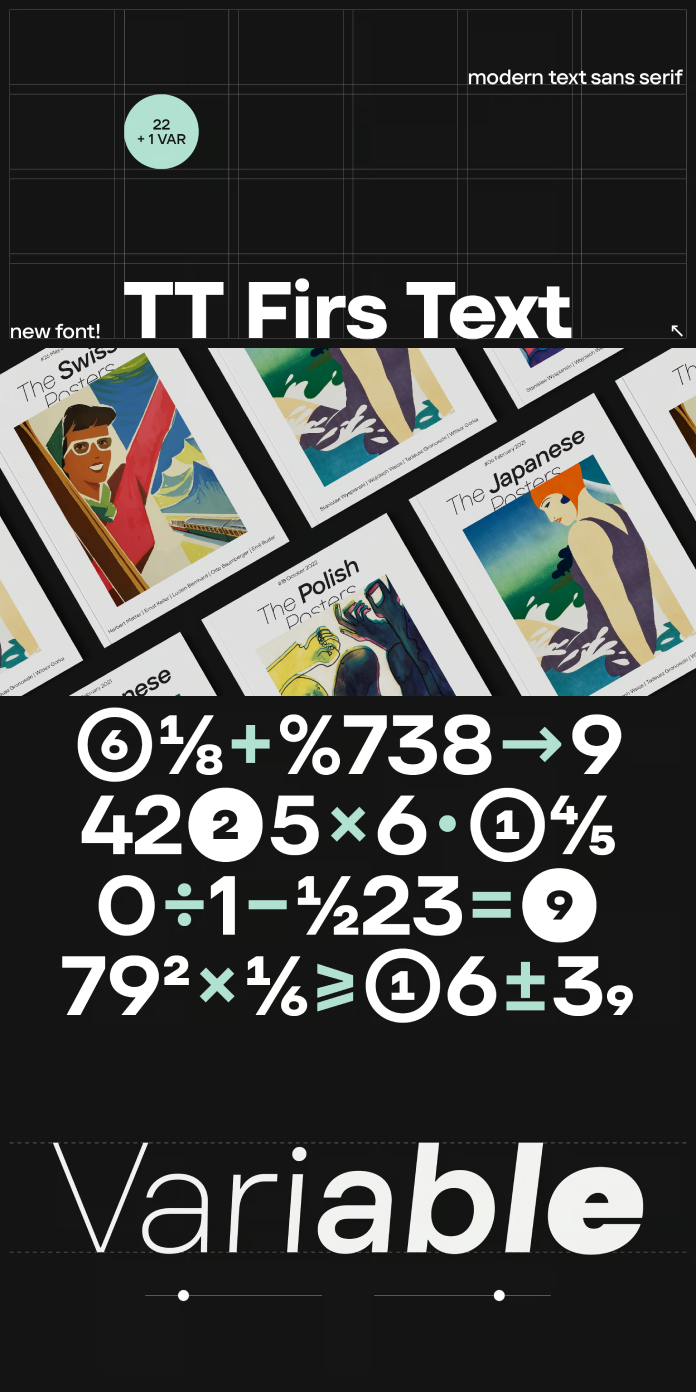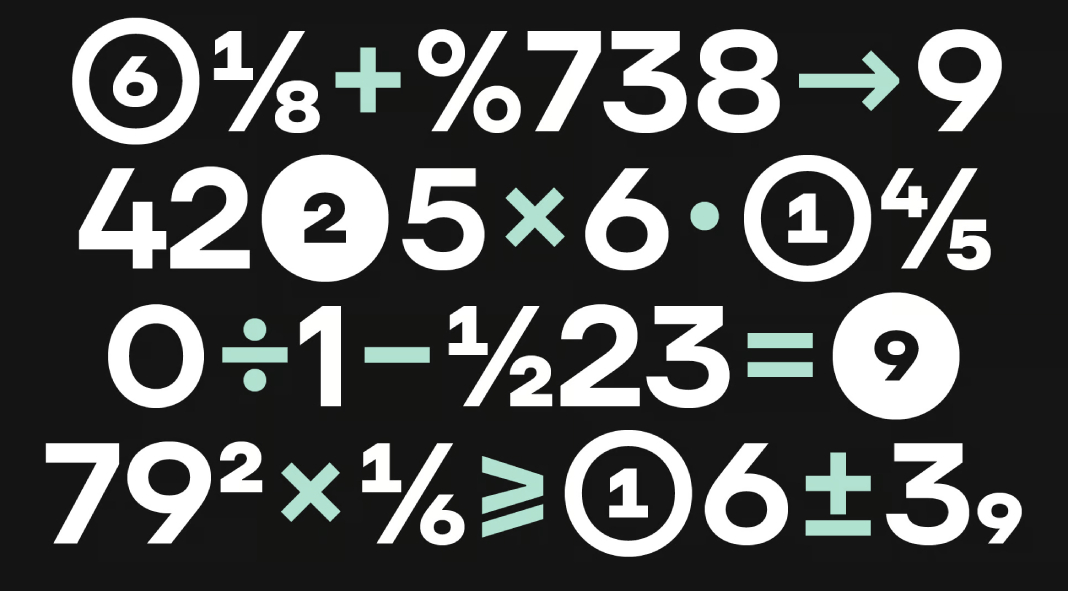
Fonts play a pivotal role in shaping our visual experiences. A beautifully designed typeface can elevate the aesthetics of any project, whether it’s a book, a website, or a branding campaign. One such masterpiece that has taken the world of typography by storm is the TT Firs Text font family, designed by Marina Khodak, Toma Streltsova, and the talented TypeType team. With its 23 font styles, versatile character sets, and an array of OpenType features, TT Firs Text has become a beloved choice for designers seeking a perfect blend of form and function.
The Essence of TT Firs Text
TT Firs Text is a typographic treasure that effortlessly combines aesthetics with functionality. Its 23 font styles encompass 11 roman, 11 italic, and one variable font, making it a versatile choice for a wide range of design applications. Whether you’re working on a formal document, a contemporary website, or an elegant invitation, this font family has you covered.
Expansive Character Sets
What sets TT Firs Text apart from the ordinary is its extensive character sets. Each font style boasts a whopping 898 characters, encompassing the expanded Latin and Cyrillic writing systems. This inclusivity ensures that you can craft content in multiple languages with ease, making TT Firs Text a go-to choice for international projects.
OpenType Features
TT Firs Text doesn’t stop at its expansive character sets; it also comes equipped with 31 OpenType features that add depth and flexibility to your designs. Some notable features include localization support for various languages, circled numerators for those special design elements, and stylish alternates for the ampersand, allowing you to customize and refine your typography to suit your unique creative vision.
Localization Support: In our increasingly globalized world, it’s essential for fonts to support multiple languages. TT Firs Text understands this need, offering localization features that cater to diverse linguistic requirements. Whether you’re designing for English, Spanish, Russian, or any other language, TT Firs Text has you covered.
Circled Numerators: Sometimes, your design calls for numerals encircled for emphasis or style. TT Firs Text simplifies this with its circled numerators feature, ensuring your typographic design remains cohesive and visually appealing.
Stylistic Ampersand: The ampersand (&) is a character that often stands out in typographic compositions. With stylish alternate options, TT Firs Text allows you to give your ampersands a unique flair, adding a touch of personality to your designs.
The Versatile Variable Font
TT Firs Text’s variable font is a standout feature that gives you unmatched typographic control. Variable fonts allow you to adjust not just the weight but also other characteristics like width and slant, all within a single font file. This means you can fine-tune your typography to fit the exact specifications of your design, whether you need something bold and eye-catching or elegant and subtle.
To sum it up, the TT Firs Text font family by TypeType Foundry stands as a true testament to the artistry and functionality that fonts can achieve. With its expansive character sets, diverse language support, and an array of OpenType features, TT Firs Text empowers designers to bring their creative visions to life with elegance and precision. Whether you’re working on a digital project, a print publication, or anything in between, TT Firs Text is a font family that will undoubtedly elevate your typographic endeavors to new heights.